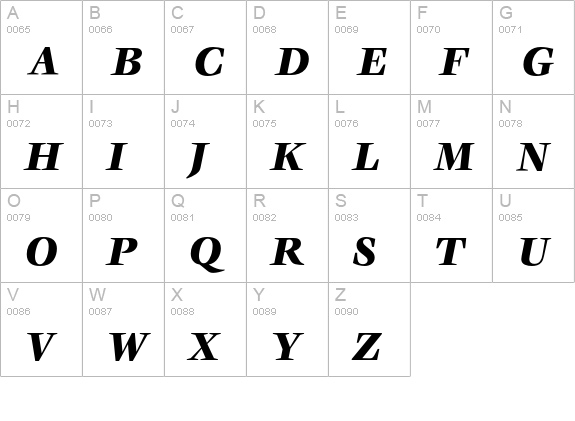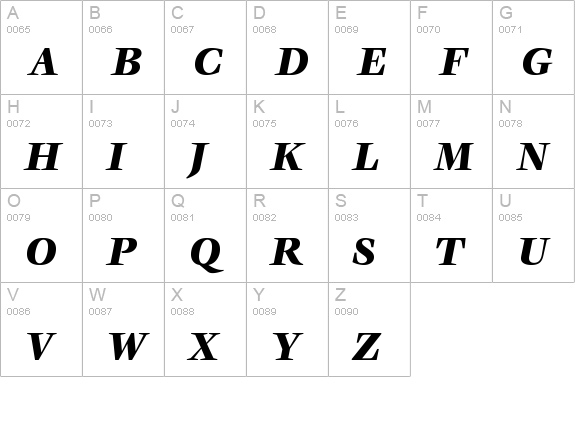
VeljovicEF-BlackItalic Font Details
VeljovicEF-BlackItalic font is a stunning and sophisticated typeface that exudes elegance and class. Its sleek and italic design adds a touch of modernity to any project, making it perfect for both digital and print applications. This font is the ideal choice for those seeking a bold and impactful look. Its strong and confident letterforms make a statement, while the subtle curves and delicate serifs add a touch of finesse. The BlackItalic style exudes a sense of authority and professionalism, making it perfect for headlines, logos, and branding materials. One of the best features of VeljovicEF-BlackItalic font is that it is free! Yes, you heard it right. You can easily download this font without spending a dime. It is freely available to download at FontsMarket.com, a trusted source for high-quality and diverse fonts. Whether you are a designer, a creative professional, or simply someone who appreciates beautiful typography, VeljovicEF-BlackItalic font is a must-have addition to your font library. Its versatility and timeless design make it suitable for a wide range of projects, from advertising and editorial design to packaging and invitations. With VeljovicEF-BlackItalic font, you can effortlessly elevate your designs and create a lasting impression. So why wait? Head over to FontsMarket.com and get your hands on this amazing font for free. Start exploring the endless possibilities and let your creativity soar with VeljovicEF-BlackItalic font.